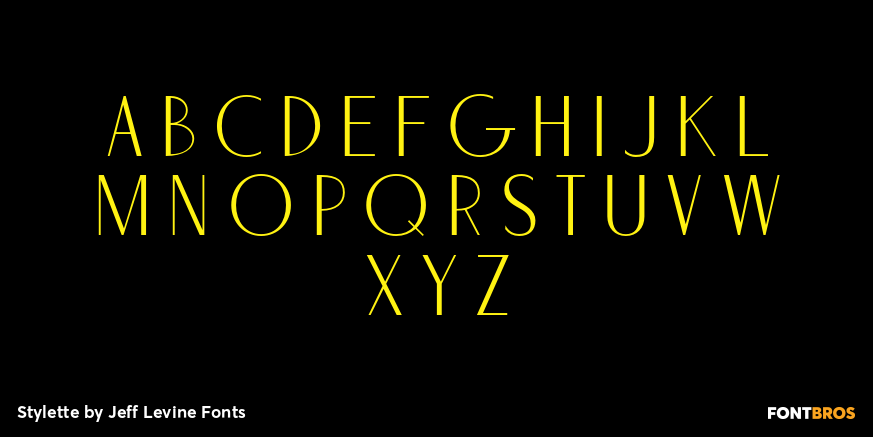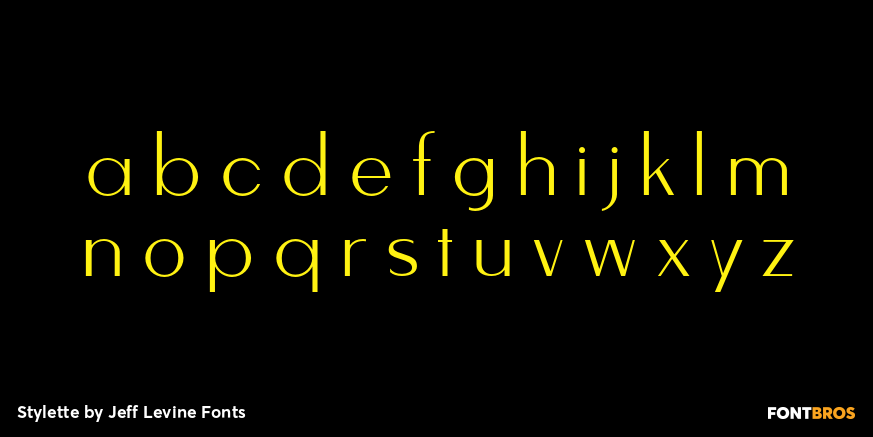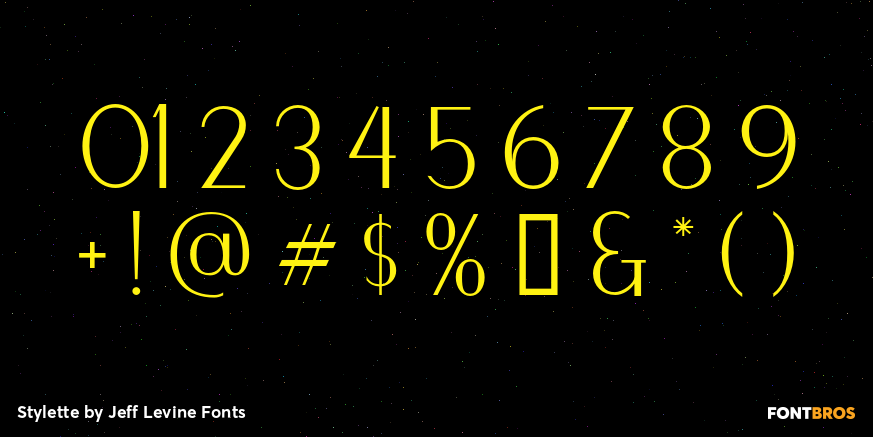
Stylette
Stylette JNL is a new treatment for Jeff Levine's popular Stylor JNL. In this instance, a heavier stroke was applied to the left side of each character, giving an Art Deco touch to the original monoline design.